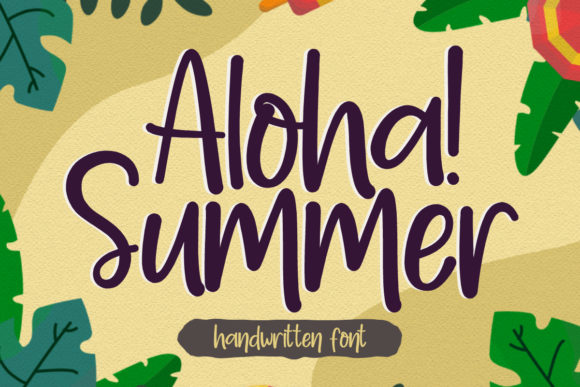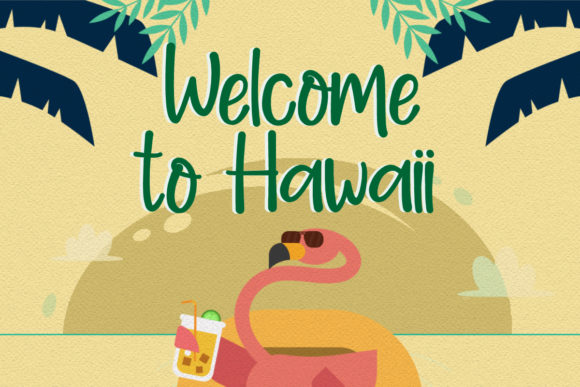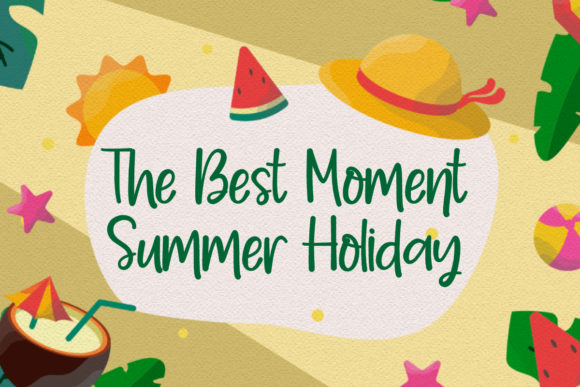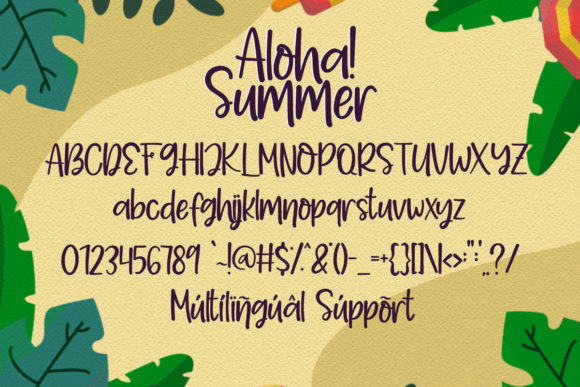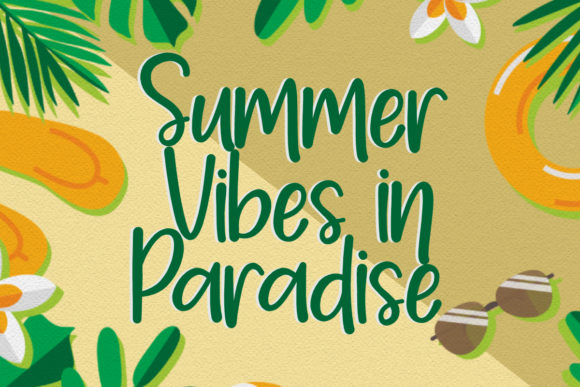
Aloha Summer Font
About Aloha Summer Font
Aloha Summer is a sweet and relaxed handwritten font, carefully designed to become a true favorite! With its neat and beautiful arrangement of letters, this typeface will look outstanding in both formal and non-formal designs.